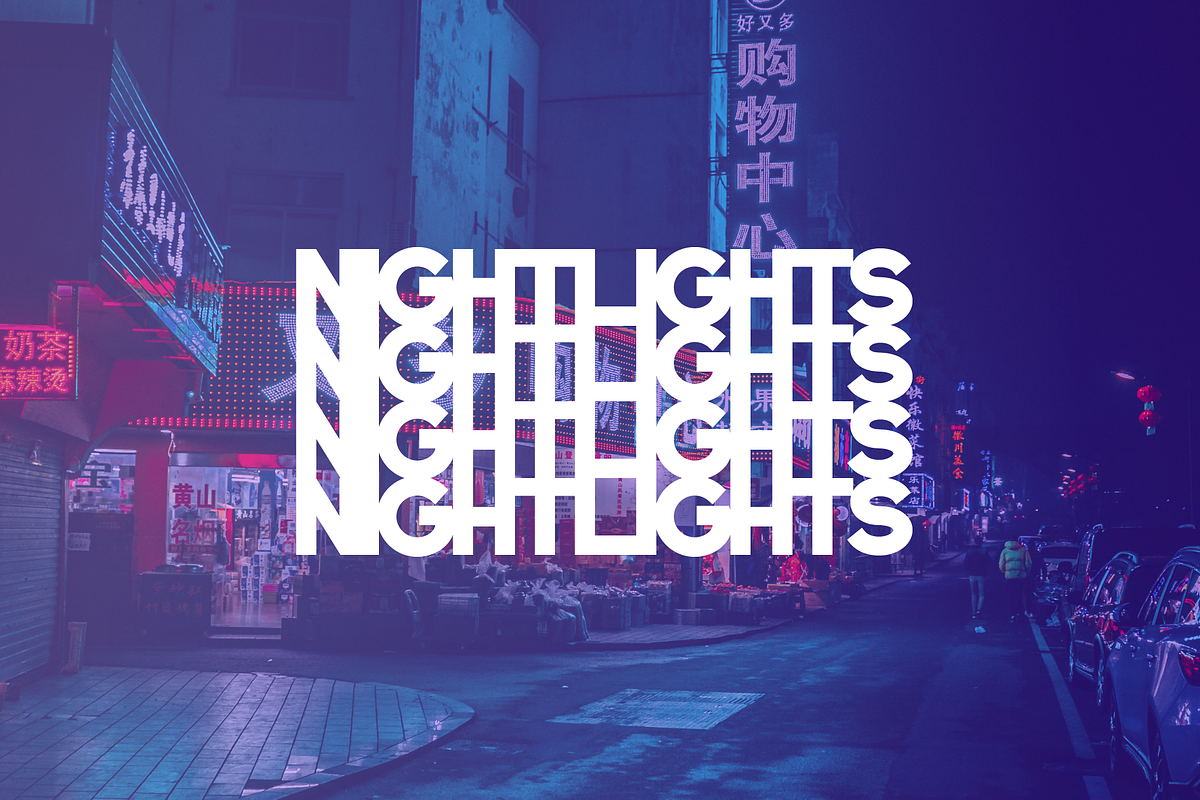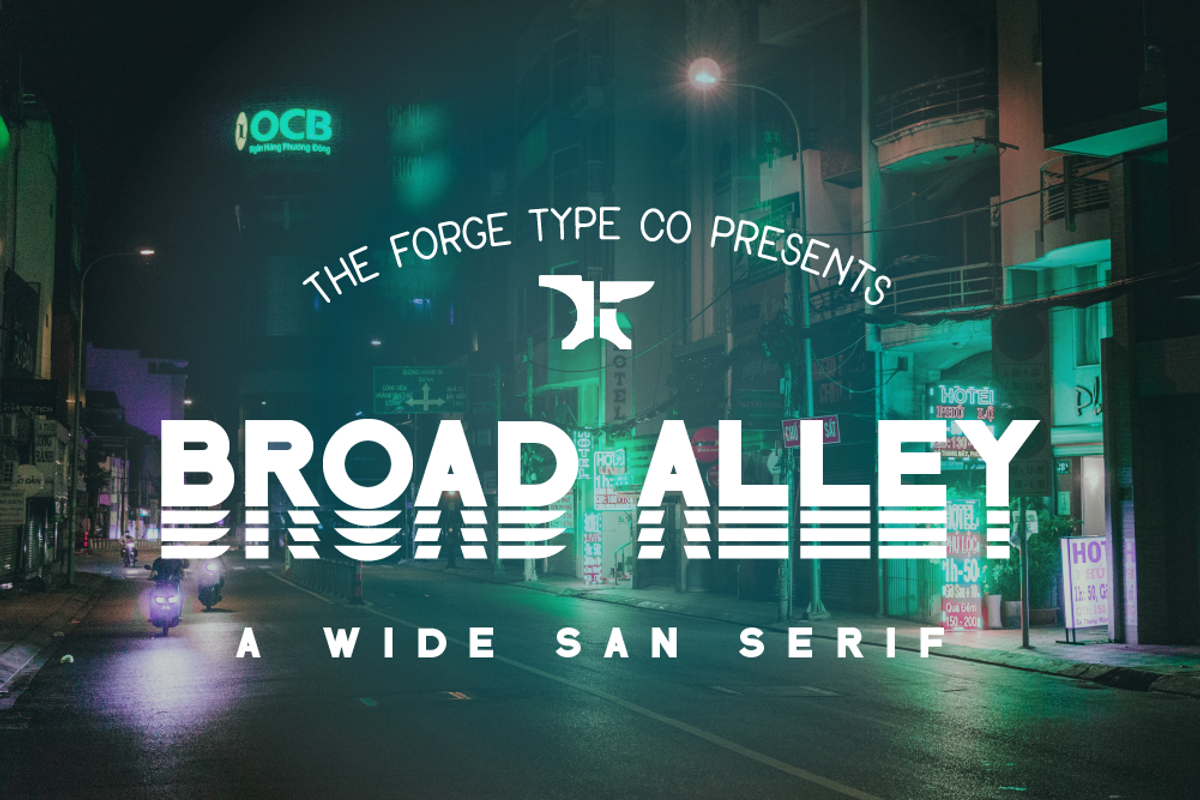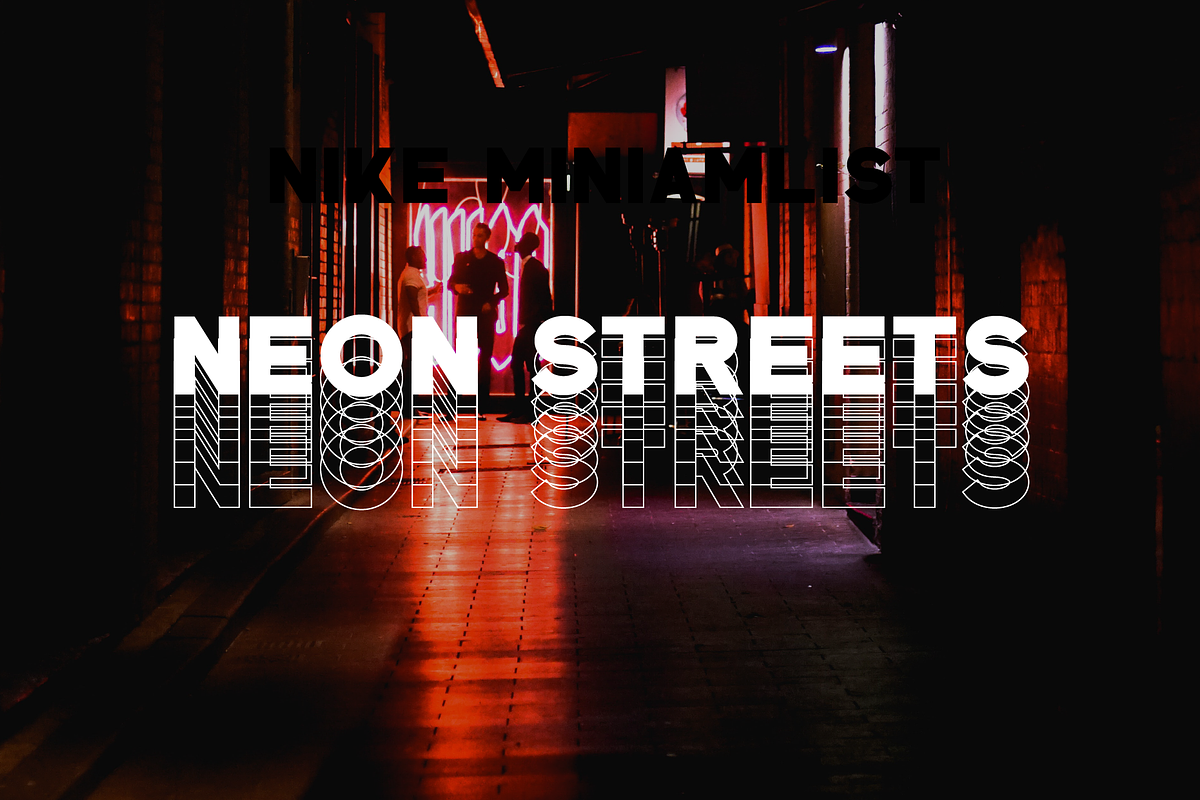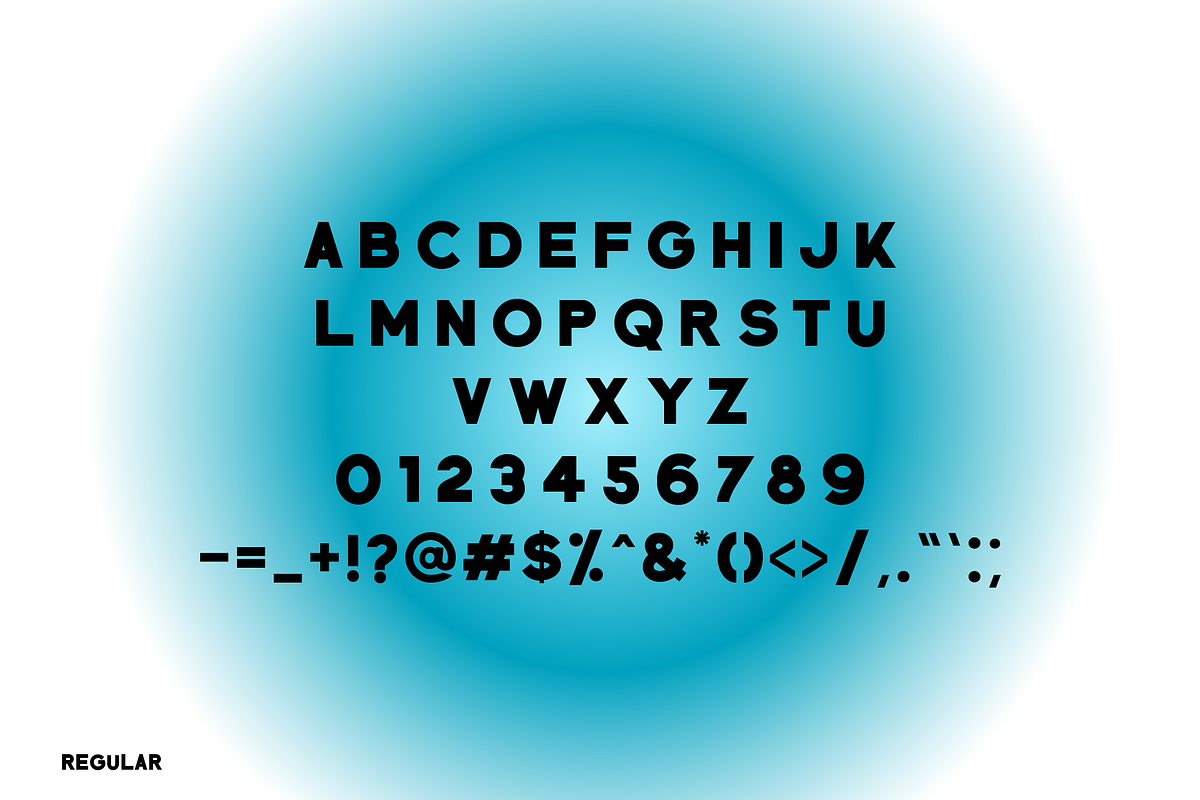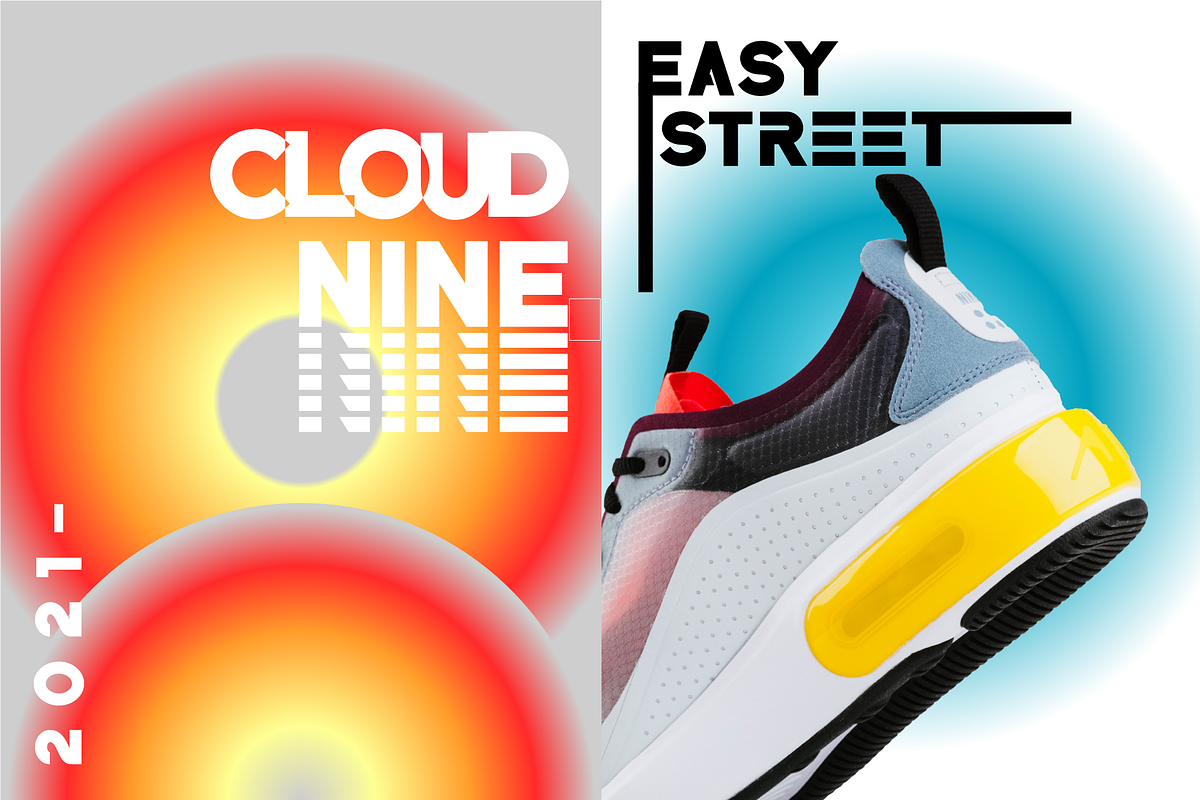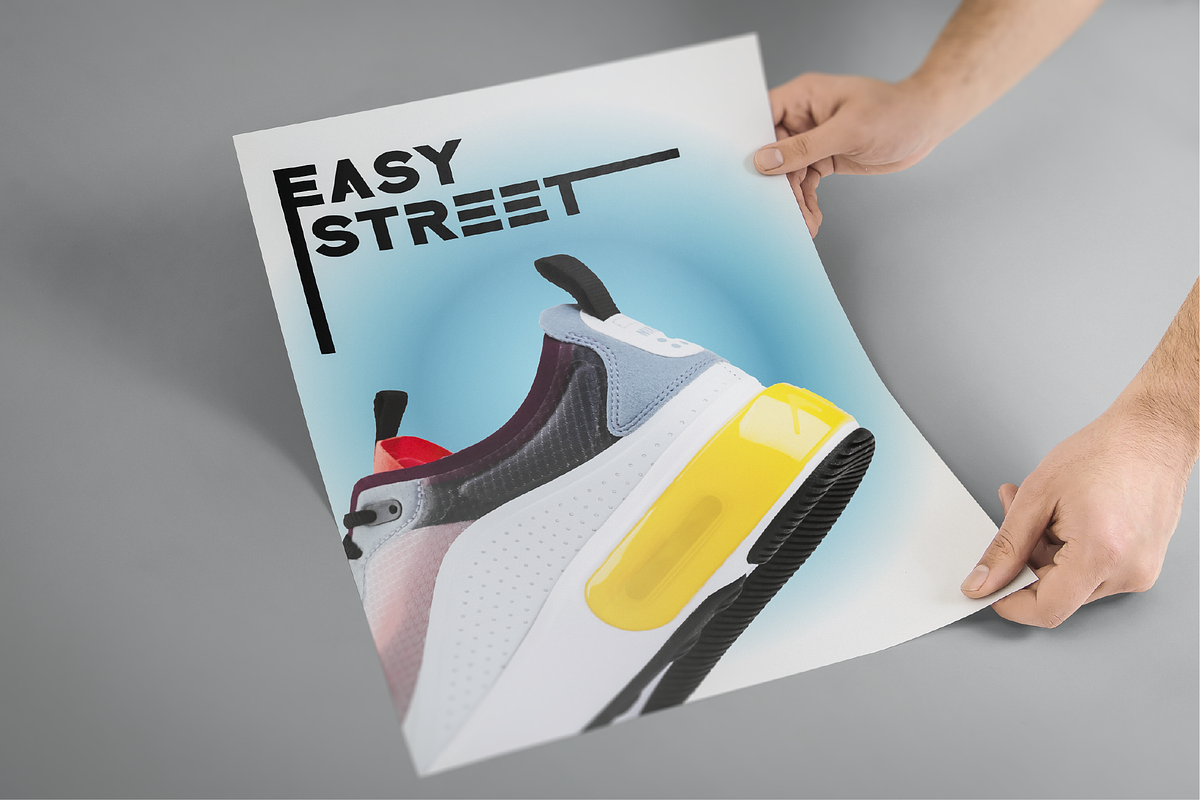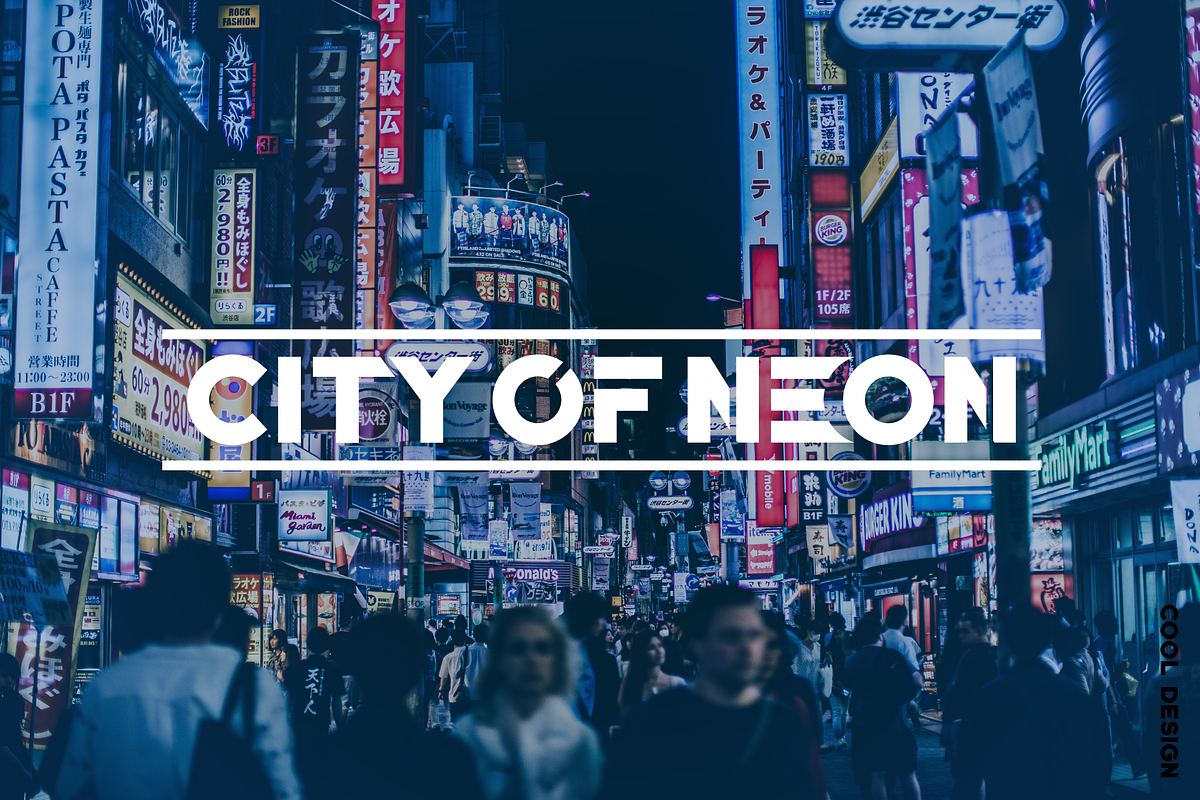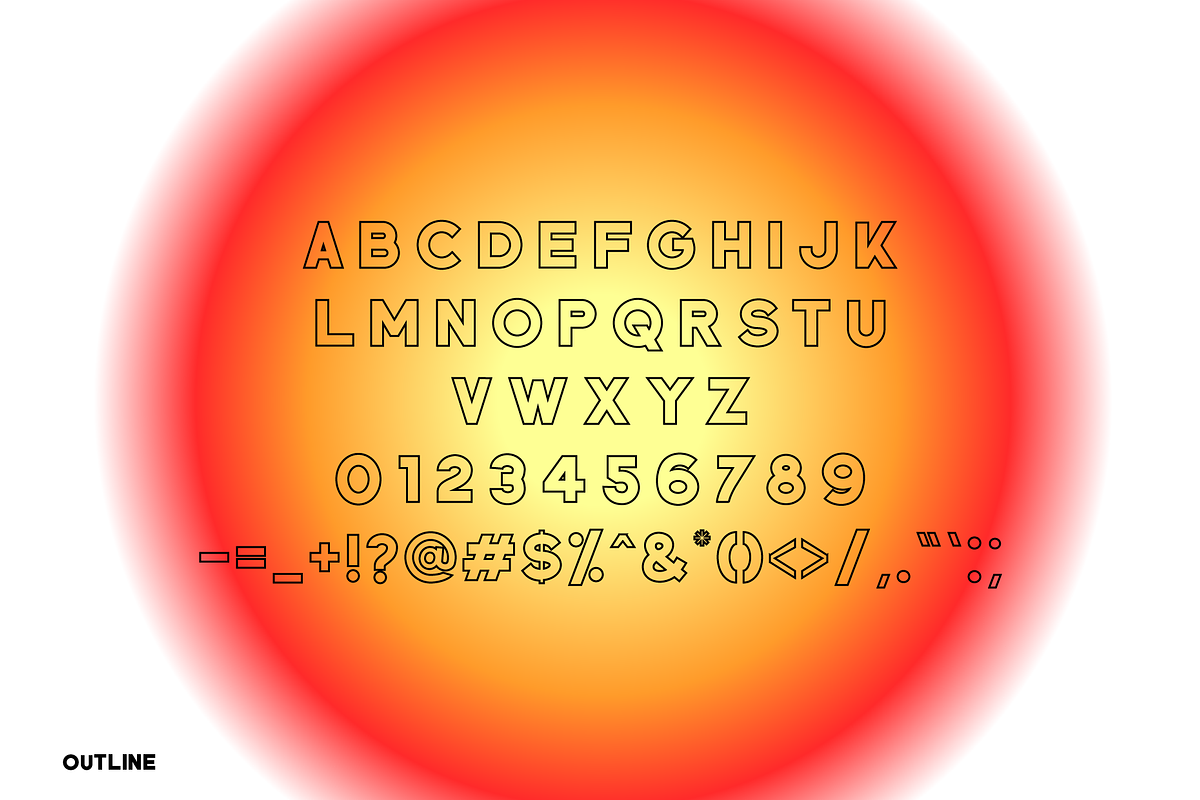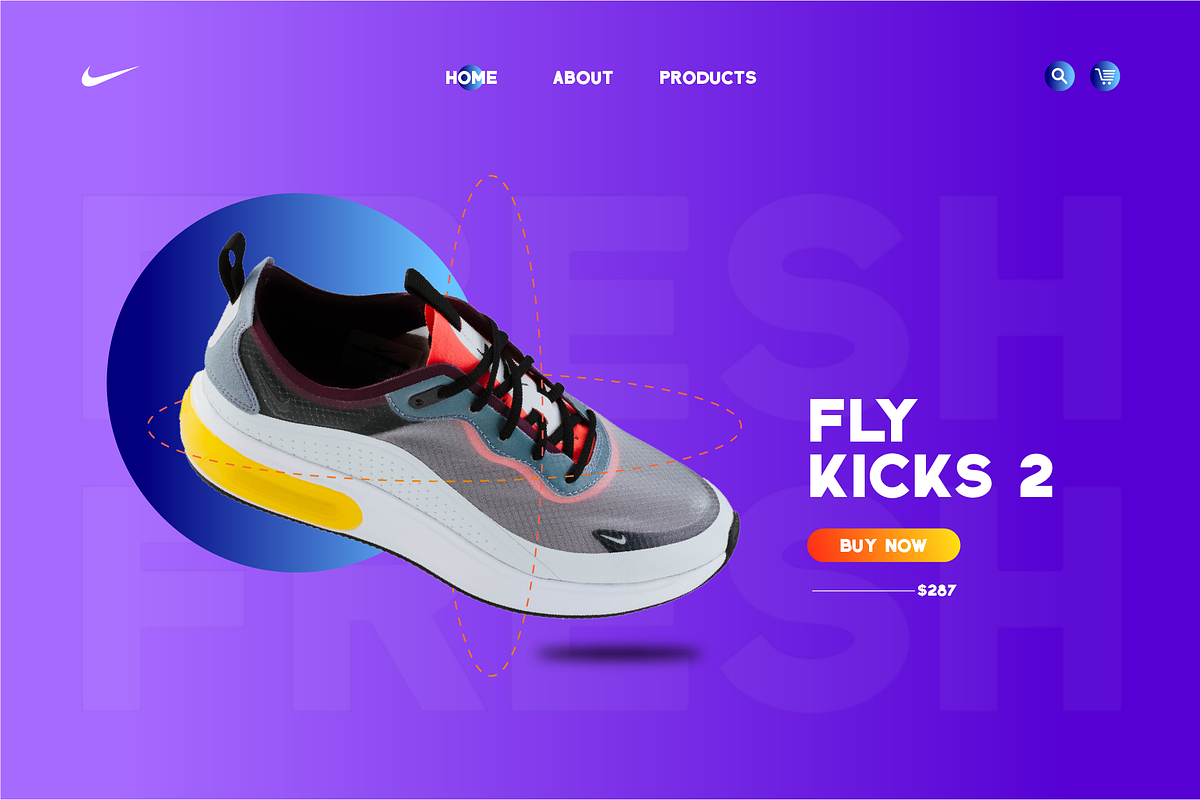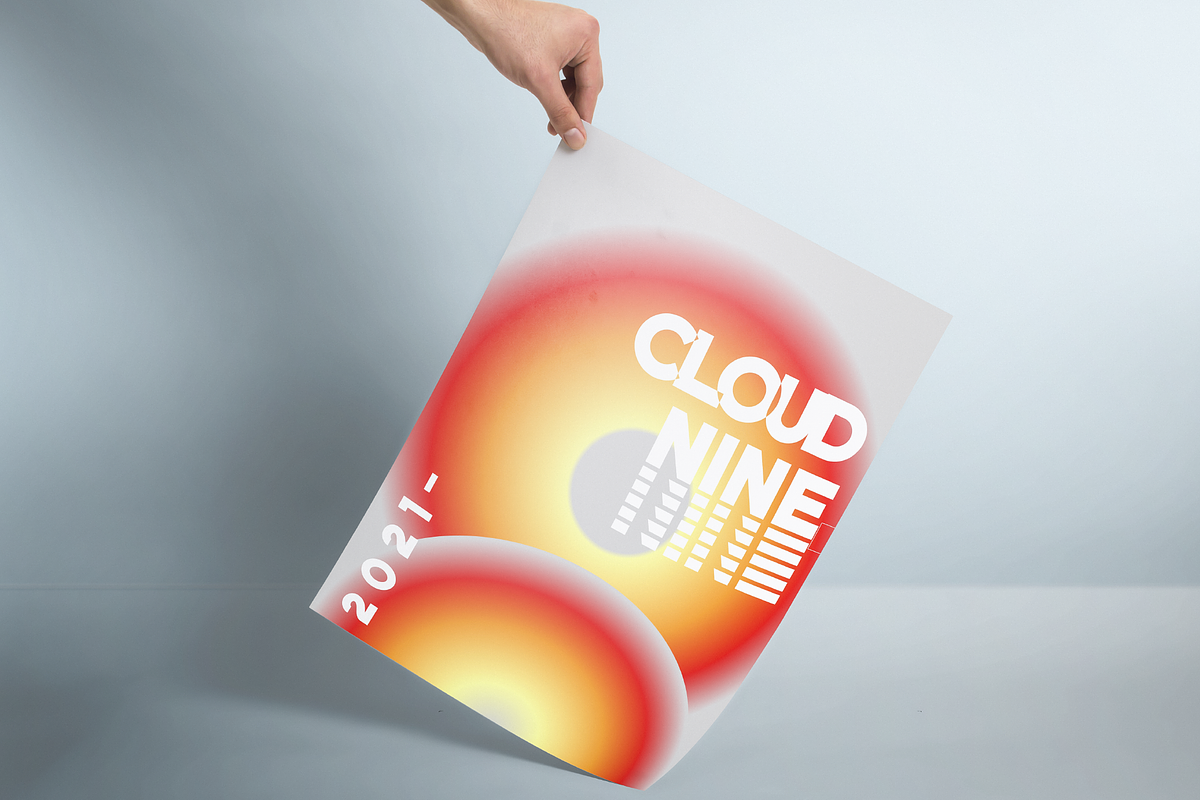
Broad Alley - A Wide San Serif Font
Introducing Broad Alley
Sometimes the best things are a little chunky! Just ask Sir Mix-a-Lot.
Broad Alley is a wide extended San Serif Font, perfect for headings, poster prints & merch. Easily modify and vary to create a whole range of different looks. Use both the outline and regular versions for extra versatility. It's the perfect choice for when you want things to stand out!
- 2 Styles Outline & Regular